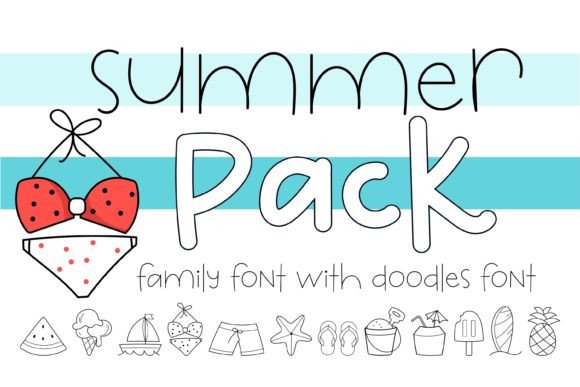
Summer Pack Font: The Perfect Choice for Your Design Projects
Are you looking for a font that can add a touch of warmth and personality to your design projects? Look no further than the Summer Pack Font. This cute and relaxed handwritten family font is perfect for a variety of design ideas, and its natural and unique style makes it a great choice for any project. In this article, we’ll take a closer look at the Summer Pack Font and explore its features, benefits, and uses.
What is Summer Pack Font?
Summer Pack Font is a handwritten family font that is designed to be both cute and relaxed. Its natural and unique style makes it perfect for a variety of design ideas, from branding and advertising to packaging and web design. The font is characterized by its smooth and flowing lines, which give it a friendly and approachable feel.
Features of Summer Pack Font
The Summer Pack Font has a number of features that make it a great choice for designers. Some of its key features include:
- Handwritten style: The Summer Pack Font is a handwritten font, which gives it a personal and unique touch.
- Cute and relaxed: The font has a cute and relaxed style that makes it perfect for a variety of design ideas.
- Natural and unique: The font has a natural and unique style that sets it apart from other fonts.
- Multi-language support: The Summer Pack Font supports multiple languages, making it a great choice for designers who work with clients from around the world.
Benefits of Using Summer Pack Font
There are many benefits to using the Summer Pack Font in your design projects. Some of the key benefits include:
- Adds a personal touch: The Summer Pack Font adds a personal touch to your design projects, making them more relatable and engaging.
- Perfect for branding: The font is perfect for branding and advertising projects, as it helps to create a friendly and approachable image.
- Easy to read: The font is easy to read, even at small sizes, making it perfect for use in a variety of design applications.
- Versatile: The Summer Pack Font is versatile and can be used in a variety of design projects, from packaging to web design.
Uses of Summer Pack Font
The Summer Pack Font can be used in a variety of design projects, including:
- Branding and advertising: The font is perfect for branding and advertising projects, as it helps to create a friendly and approachable image.
- Packaging design: The font is great for packaging design, as it adds a personal touch to product labels and packaging.
- Web design: The font is perfect for use in web design, as it is easy to read and helps to create a friendly and approachable image.
- Social media graphics: The font is great for use in social media graphics, as it helps to create engaging and relatable content.
- Choose the right font size: The next step is to choose the right font size for your design project. The Summer Pack Font is clear and easy to read at a variety of font sizes, so choose the one that works best for your project.
- Experiment with different colors: The Summer Pack Font looks great in a variety of colors, so don’t be afraid to experiment and find the color that works best for your project.
Tips for Using Summer Pack Font
Here are a few tips for using the Summer Pack Font:
- Use it for headlines and body copy: The Summer Pack Font is perfect for use in headlines and body copy, as it is clear and easy to read.
- Experiment with different font sizes: The font looks great at a variety of font sizes, so don’t be afraid to experiment and find the one that works best for your project.
- Use it with other fonts: The Summer Pack Font can be used with other fonts to create a unique and interesting design.
- Make it bold or italic: The font looks great in bold or italic, so don’t be afraid to experiment and find the style that works best for your project.
The Summer Pack Font is a great choice for designers who are looking for a font that is both cute and relaxed. Its natural and unique style makes it perfect for a variety of design ideas, and its ease of use makes it a great choice for designers of all skill levels. Whether you’re working on a branding project, packaging design, or web design, the Summer Pack Font is a great choice.
- What is the Summer Pack Font?
- The Summer Pack Font is a handwritten family font that is designed to be both cute and relaxed.
- What are the benefits of using the Summer Pack Font?
- The benefits of using the Summer Pack Font include adding a personal touch to your design projects, being perfect for branding and advertising, being easy to read, and being versatile.